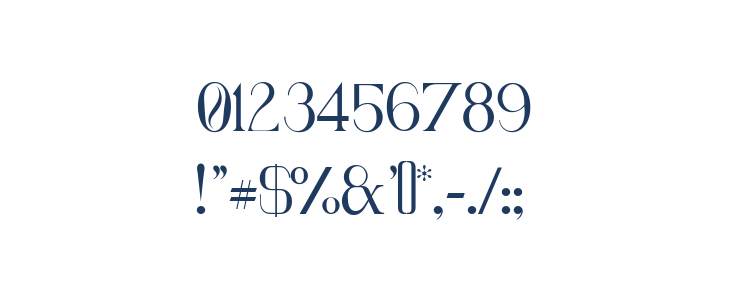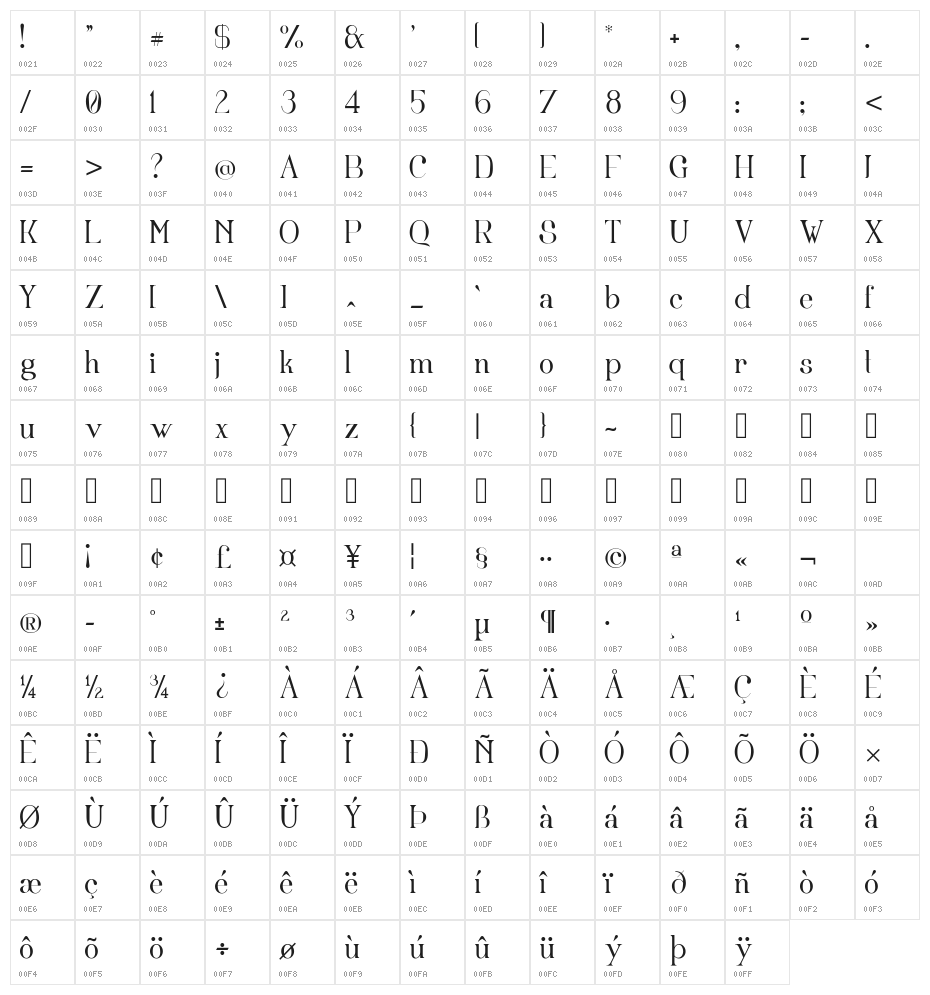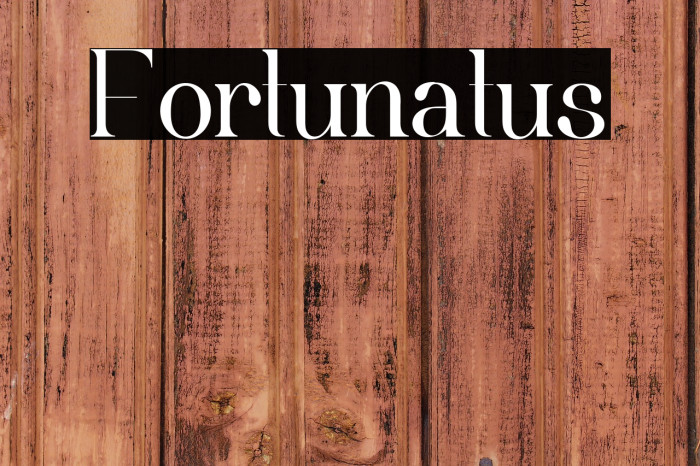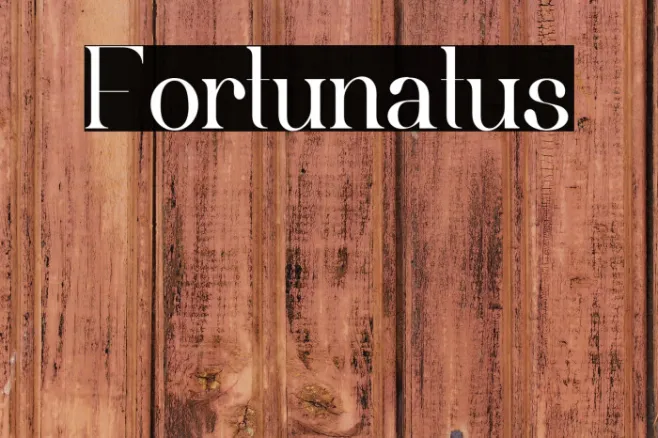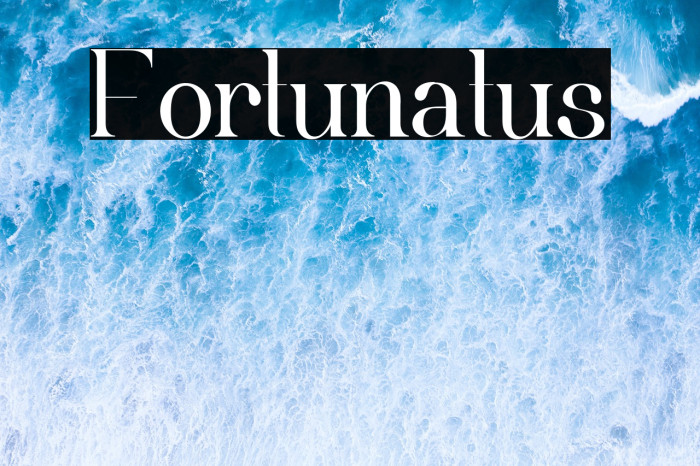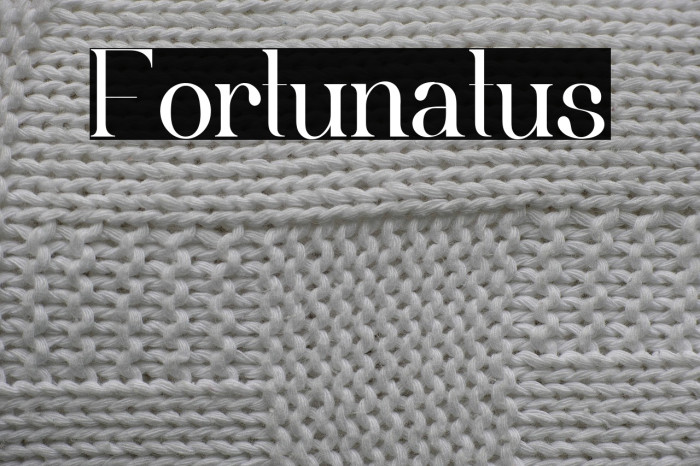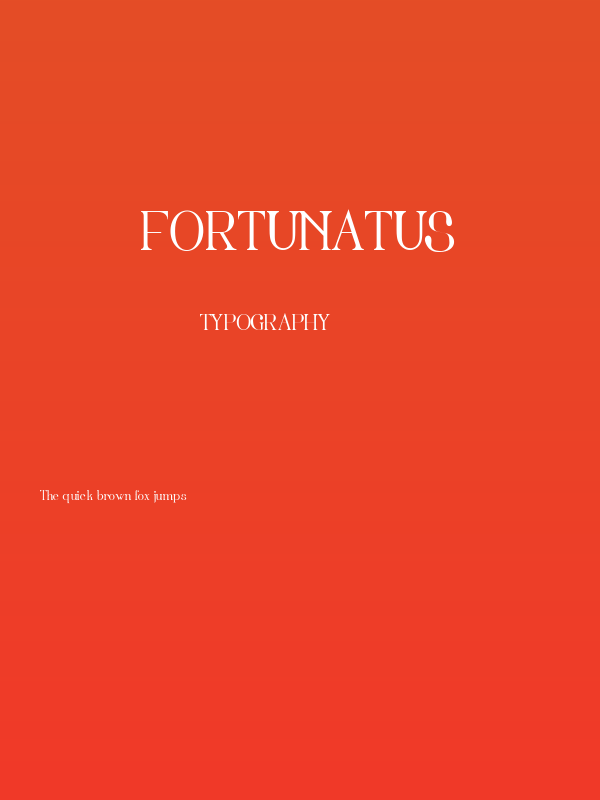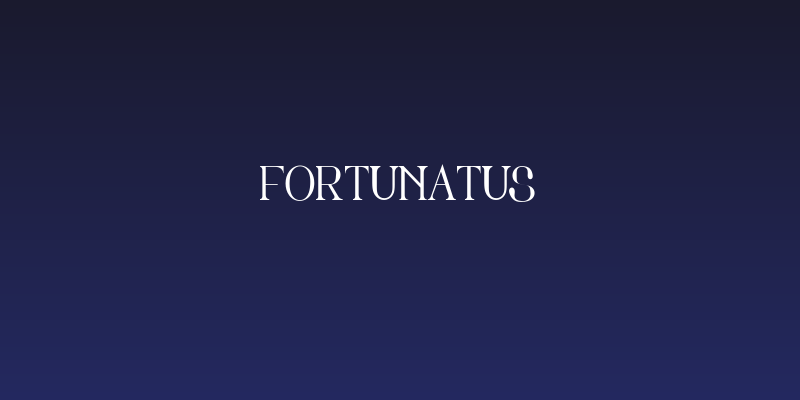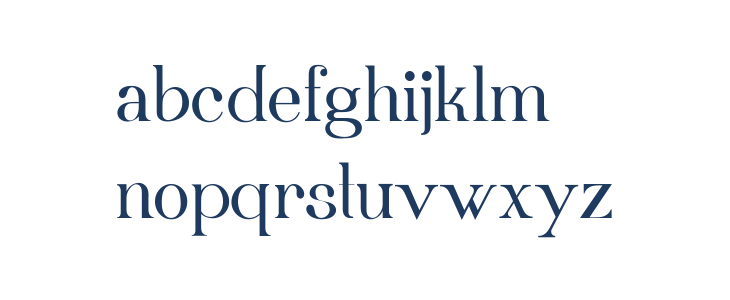
Fortunatus Font
Fortunatus Description
This font features a unique blend of modern and classic elements, characterized by its high contrast between thick and thin strokes. The uppercase letters exhibit a strong, bold presence with sharp serifs, while the lowercase letters maintain a more delicate and refined appearance. The numerals are elegantly styled, complementing the overall aesthetic. The special characters are designed with a flair that adds a decorative touch, making this font versatile for various design needs. Its distinct style makes it suitable for projects that require a sophisticated and stylish look.